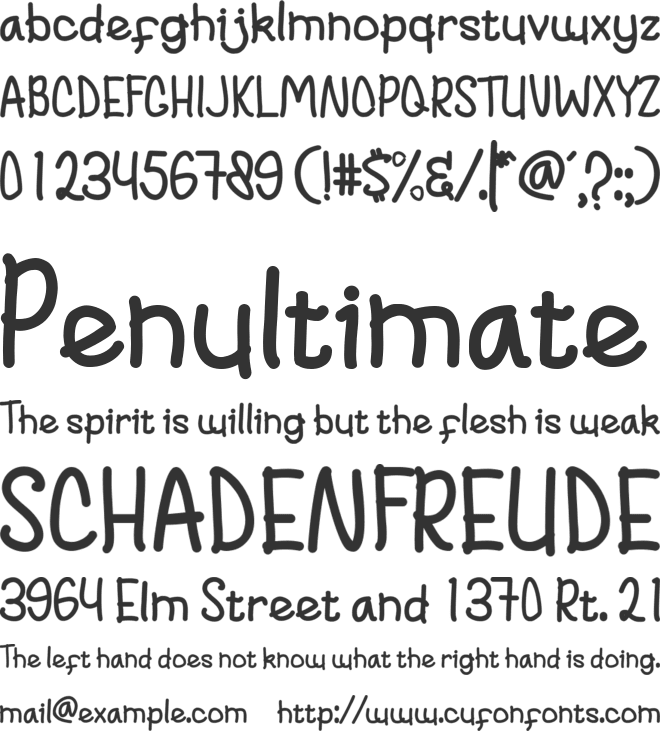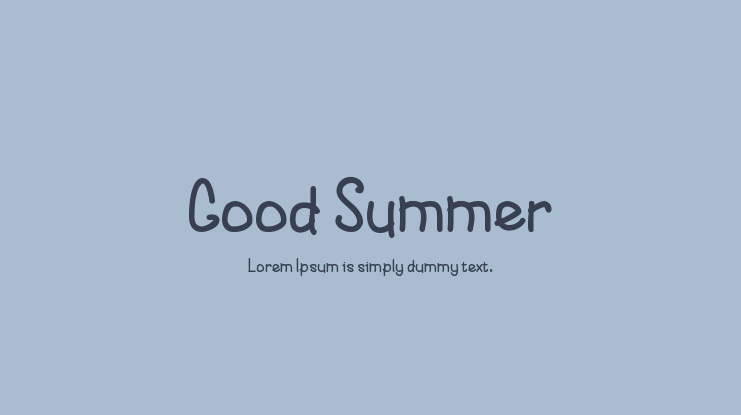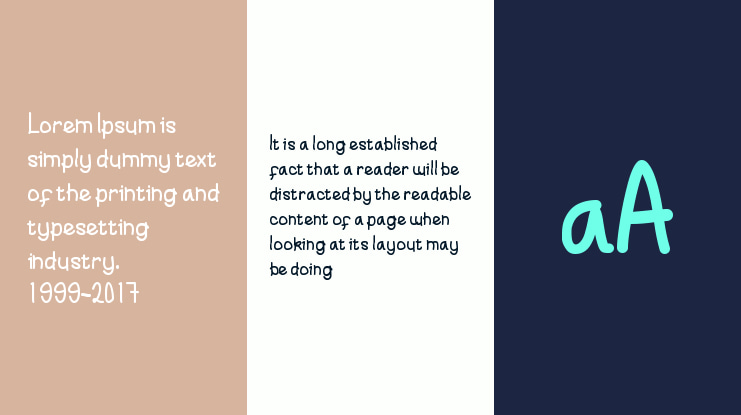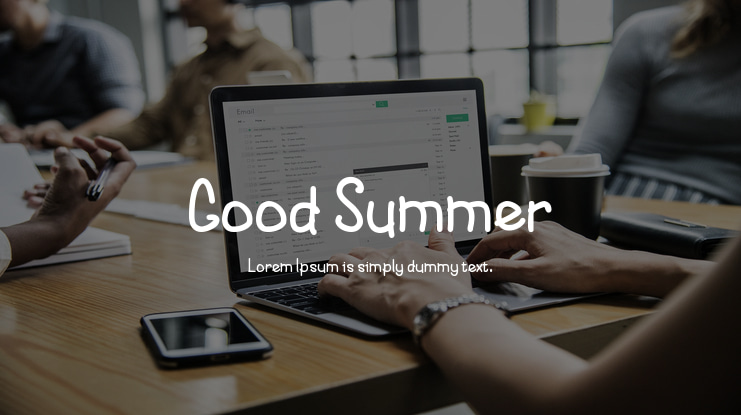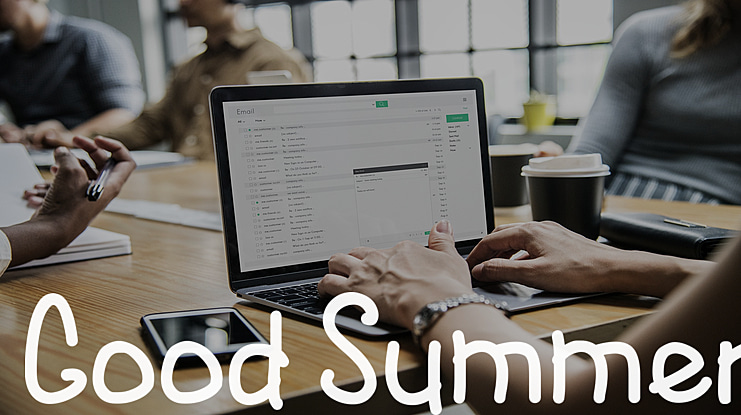
Good Summer Font
Good Summer is a sweet handwritten font with a joyful feel. Due to its playful and colorful style, this font is particularly adept for all the school and kids projects that you wish to create!